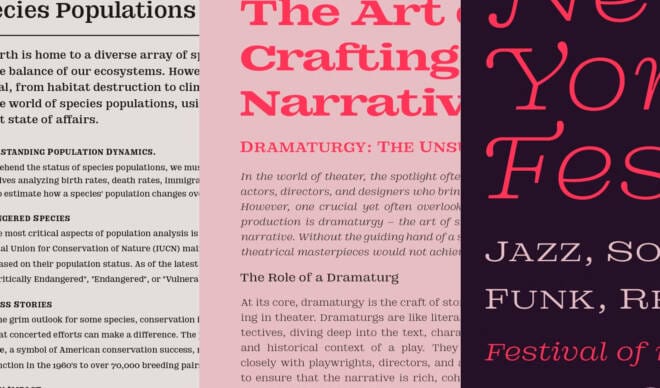
Choosing the Perfect Website Font: Essential Considerations
Featuring Fugiat by MageType
In the dynamic world of web design, the significance of typography transcends mere text display; it shapes the site’s ambiance, communicates your brand’s essence, and markedly influences the user experience. Amidst many font options, pinpointing the quintessential choice for your website might appear formidable.
This guide clarifies this process, spotlighting key factors such as font pairing, responsiveness, accessibility, and readability, ensuring your typographic selections elevate the visual appeal and optimize functionality.
1. Understanding Font Pairing Essentials
Choosing the right font combinations is pivotal in website design, where headings, subheadings, and body text must harmonize to convey your brand identity effectively. In this section, we’ll explore the art of font pairing, focusing on how to match display fonts with minimalist body fonts like Open Sans for clarity and impact. We’ll delve into the best practices for selecting font combinations from your library, considering fonts from various formats and foundries, including free fonts available through platforms like Adobe.
The Art of Combining Fonts
Mastering font pairing is akin to crafting a symphony; it’s about achieving a harmonious balance between contrast and congruity. Imagine a bold, striking header font like Quiche alongside a subtle, easy-to-read body text font like Sofia Pro, creating a vibrant and legible layout. Experiment with diverse combinations, but aim for fonts that complement rather than clash, enhancing the user’s content journey.
Font Pairing Do’s and Don’ts
• Do: Marry a serif typeface with a sans serif font to meld tradition with modernity, such as Montserrat and Poppins, for a contemporary flair.
• Don’t: Opt for fonts that are too akin in appearance, as they may blend indistinctly, rendering your content bland.
• Do: Ensure the fonts share a similar x-height for visual unity.
• Don’t: Clutter your design with many different fonts; a maximum of 2-3 ensures clarity and cohesion.
2. Ensuring Responsiveness Across Devices
Responsiveness is a cornerstone of modern website design, ensuring your page looks great and functions seamlessly across all devices. This section will guide you through choosing web fonts that maintain legibility and style, from large headings to lowercase letterforms, ensuring your primary and secondary fonts adapt from desktop to mobile. We’ll cover how to test font responsiveness and why display and script fonts might behave differently on various screens.
Adaptable Font Choices for Every Screen
In our increasingly multi-device landscape, ensuring your website’s fonts maintain clarity and character across varied screen dimensions is paramount. Responsive design encompasses more than just structural layout; your typography must fluidly adapt. Opt for fonts that remain legible and retain their aesthetic integrity, from expansive desktop displays to compact mobile screens.
Testing Fonts on Multiple Screens
Before finalizing your font selection, conduct thorough tests across diverse devices and web browsers. Assess potential legibility issues, loading durations, and overall visual impact. Utilizing browser emulators can offer preliminary insights, yet nothing supersedes the authenticity of real-device evaluations to gauge true performance.
3. Prioritizing Accessibility and Readability
Accessibility and readability are non-negotiable in creating an inclusive web page. Here, we’ll discuss the importance of selecting fonts that everyone can read easily, emphasizing fonts with clear letterforms, such as slab or sans-serif fonts like Open Sans. We’ll also touch on the role of italics and lowercase text in readability and how accent fonts can be used sparingly to enhance website design without compromising accessibility.
Fonts That Everyone Can Read
At the core of user-centric web design lies accessibility and readability. Selecting fonts that cater to a broad audience spectrum, including individuals with visual impairments, is essential. Opt for distinct character differentiation (e.g., ‘I’ vs. ‘l’) and sufficient letter spacing to enhance universal readability.
Optimal Font Sizing and Spacing
To optimize readability, adhere to established guidelines and sizing for font dimensions and spacing. While body text is often most legible at 16px, this can vary based on the font and contextual web design considerations. Line height and paragraph spacing should be adequately spacious to avert crowded text, thus facilitating an effortless reading flow.
4. Selecting ‘Web Safe’ Fonts
In this digital age, ‘Web Safe’ fonts are essential for ensuring your content appears consistently across different browsers and devices. We’ll explore what makes a font ‘Web Safe’ and introduce you to a curated list of fonts you can rely on for your website design, including classics and new, versatile fonts from Adobe’s font library. This section will help you navigate the complexities of web font licensing and integration, ensuring your website always looks its best.